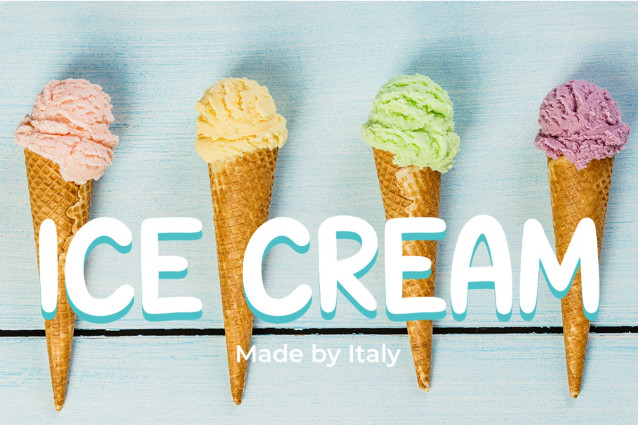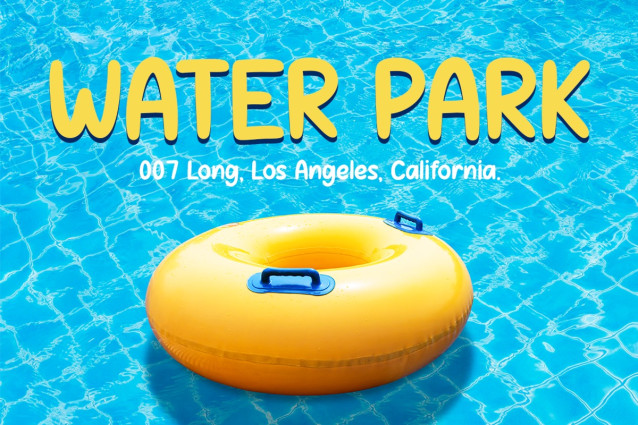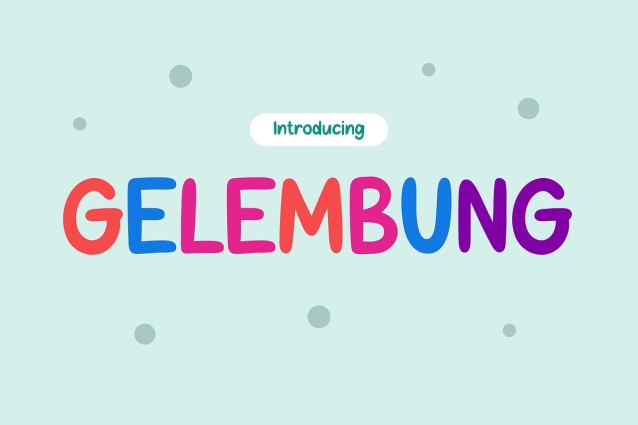
Gelembung Font
Gelembung Font, the font that brings a playful and humorous touch to your designs! With its quirky display style, Gelembung is a delightful choice for injecting fun into various creative projects. Whether you’re in the world of fashion, creating a memorable logo, adding humor to quotes, or designing eye-catching invitations, posters, greeting cards, packaging, branding, cover albums, events, postcards, kids’ materials, or school-related content, Gelembung is your go-to companion for infusing joy and whimsy